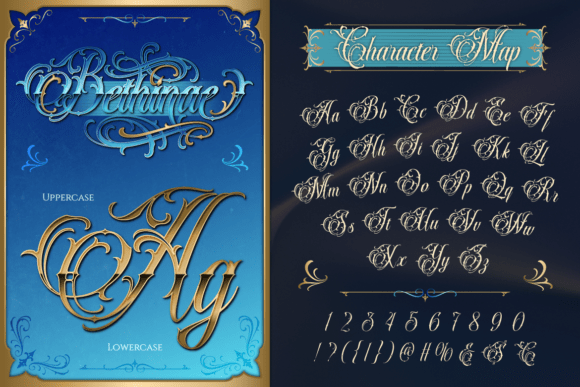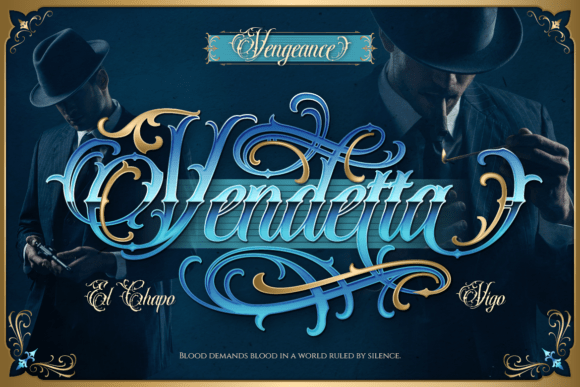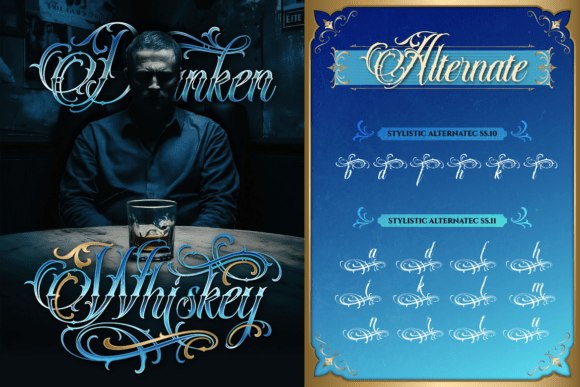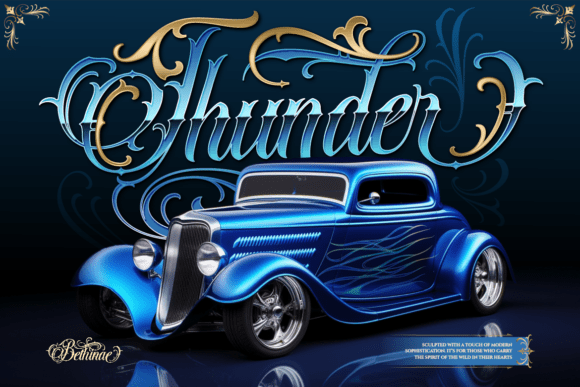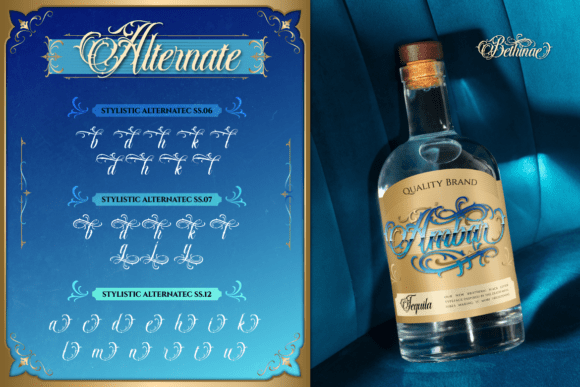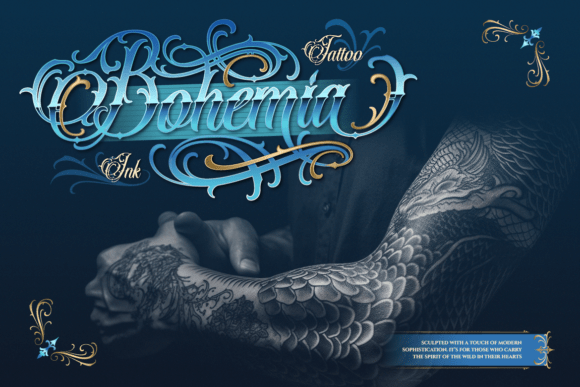
Unleashing the Dark Elegance of Bethinae Font
There’s something about the fusion of art and rebellion that sparks creativity, and for many designers, it’s the perfect catalyst for their next project. Perhaps it’s the thrill of experimenting with bold shapes, or the allure of crafting a design that exudes mystery and luxury. Whatever the spark, it’s a feeling that’s hard to ignore, and it’s exactly what inspired the creation of the Bethinae Font.
Bethinae Font is a script font that seamlessly blends elegance and masculinity, making it the perfect choice for designers who crave a unique look that’s both refined and rebellious. With its detailed flourishes and stylish swirls, this font is sure to add a touch of sophistication to any design, whether it’s a logo, a tattoo, or a streetwear brand. And with its two styles – Regular and Ornaments – designers have even more flexibility to create their desired look.
For designers, the Bethinae Font is a valuable tool that offers endless possibilities for creativity and self-expression. Its dark, glamorous vibe is perfect for a range of industries, from tattoo studios and luxury garages to streetwear branding and exclusive clubs. Whether you’re looking to create a bold, eye-catching design or a sophisticated, high-end look, the Bethinae Font is sure to deliver.
Bethinae Font Key Features
- Font Family: Bethinae, a high-quality, professional script font.
- Font Size: 1,032 glyphs, providing a wide range of characters and symbols.
- Unique Characteristics: Features a unique, elegant script style with a mix of modern and vintage elements, making it perfect for creative and professional applications.
- Language Support: Supports multiple languages, including Latin-based languages and Cyrillic.
Bethinae Font Review
Overall, I was excited to dive into the Bethinae font, but it left me with mixed feelings. Here’s my honest take on what works and what doesn’t.
- The Bethinae font has a unique and elegant feel to it. It’s perfect for creative projects that need a touch of sophistication.
- The font is highly legible, making it suitable for both body text and headings.
- The variety of weights and styles available makes it easy to customize your design to fit your needs.
- The Bethinae font may not be the best choice for digital interfaces or screens due to its high contrast and complex letterforms.
- The font’s design may not be ideal for long blocks of text, as it can become visually overwhelming.
Overall, the Bethinae font is a solid choice for creative projects that require a touch of elegance. However, it may not be the best fit for digital interfaces or projects with extensive text content.
Tips for Getting the Most Out of Bethinae Font
For best results, use Bethinae Font in combination with high-quality images and a clean design.
Experiment with different font sizes, colors, and styles to create a unique look.
Use Bethinae Font for headings, titles, and other attention-grabbing text elements.
Bethinae Font is ideal for:
Book and magazine titles
High-end event and luxury product marketing
Alternatives to Bethinae Font
Montserrat is a modern sans-serif font designed for digital media. It is clean, minimalist, and highly legible. Montserrat is ideal for use in digital applications, websites, and mobile apps where readability is crucial. When to use: Digital applications, websites, mobile apps.
Montserrat compares to Bethinae Font in its modern and clean design, but Montserrat has a more geometric feel and is more suitable for digital media. Montserrat has a larger x-height, making it more readable at smaller font sizes.
Avenir is a geometric sans-serif font designed for use in print and digital media. It is highly legible and versatile, making it suitable for a wide range of applications. Avenir is ideal for use in branding, packaging, and advertising where a modern and sophisticated look is desired. When to use: Branding, packaging, advertising.